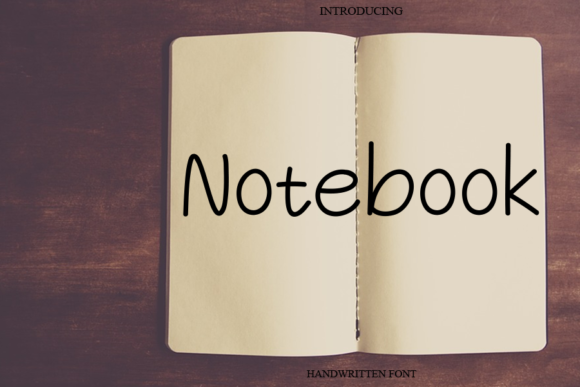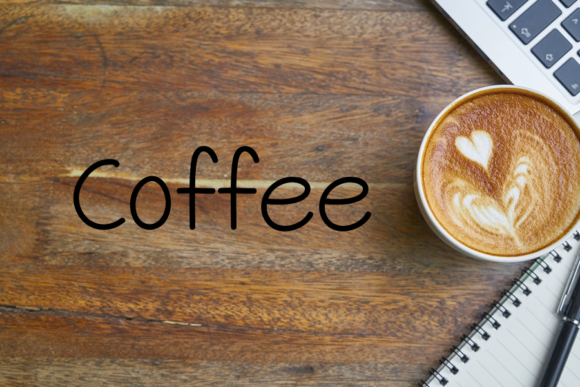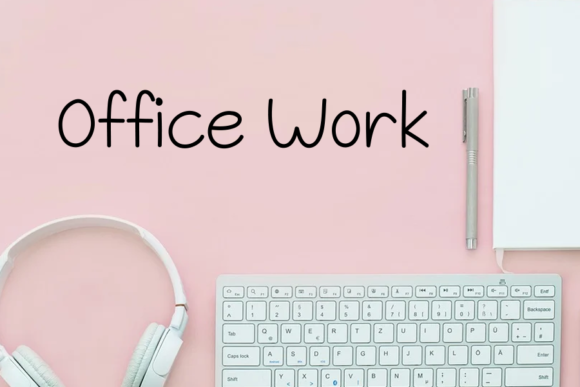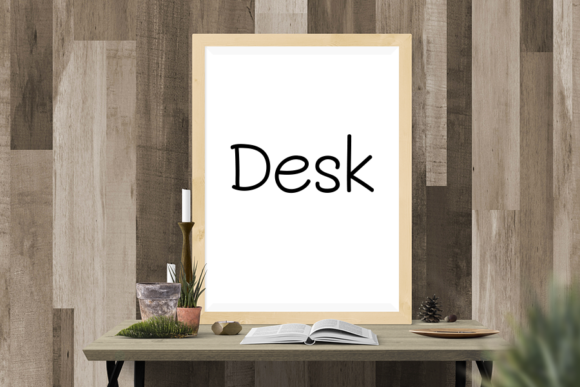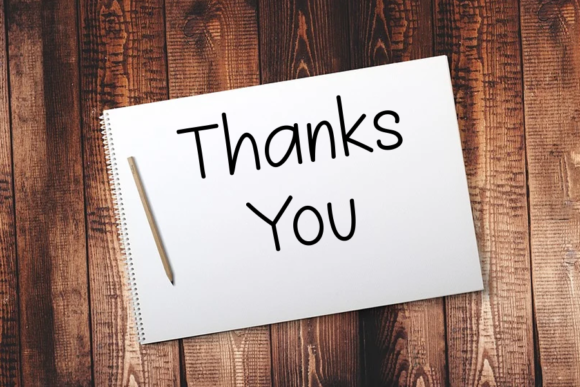
Notebook Font
About Notebook Font
Notebook is a cute handwritten font. Its sweet and full of life style makes this font a wonderful choice for brightening up your designs.